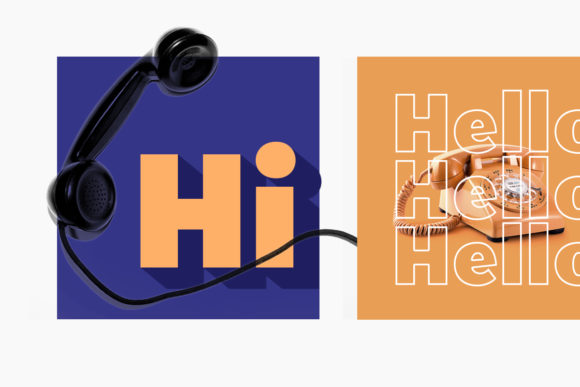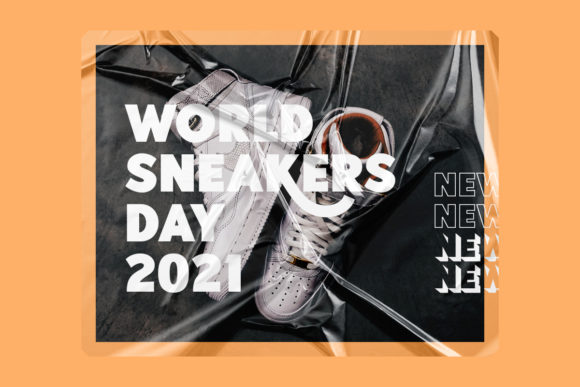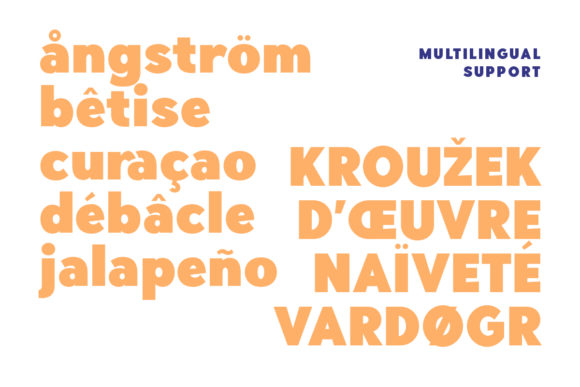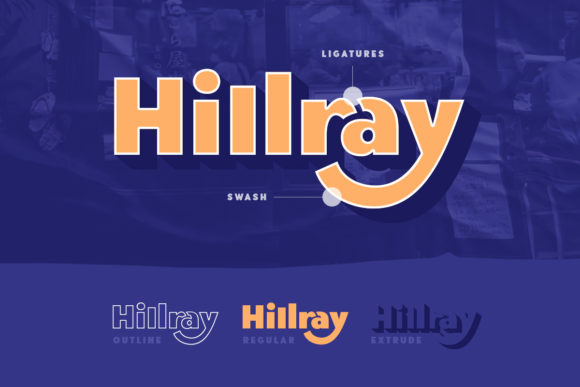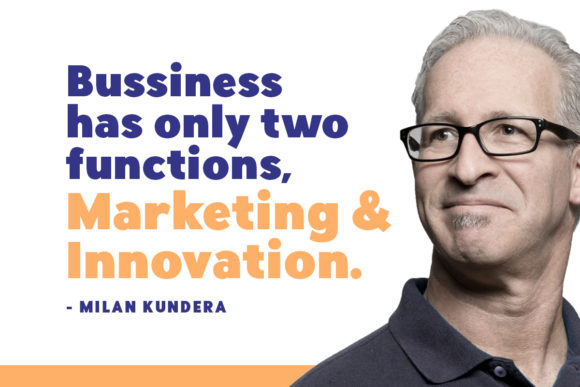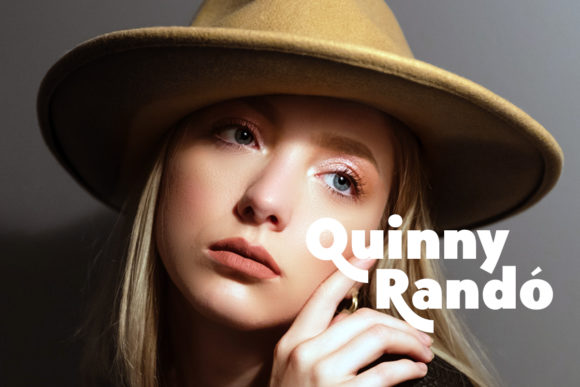
Hillray is a stylish bold sans serif that contains ligatures and alternates.
This stylish font also includes extrude and outline style that will compliment the regular style This font is perfect for posters, branding, merchandise, and much more.